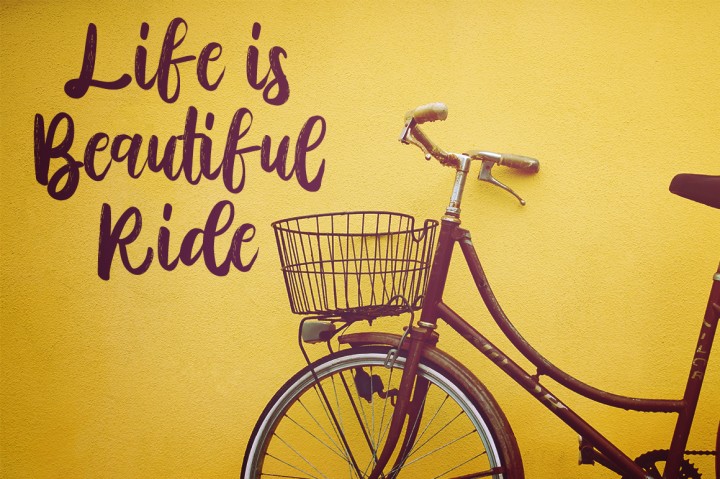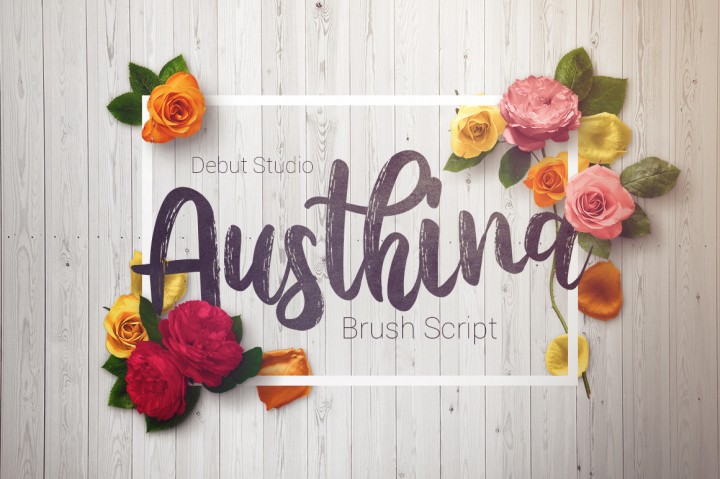
Austhina Brush
Austhina Brush Font
**Debut Studio** presents the latest font **Austhina Brush Calligraphy Font** This font  is perfect for design purposes such as title title, magazine, newspaper, website, to design quotations, posters, business cards, and others.